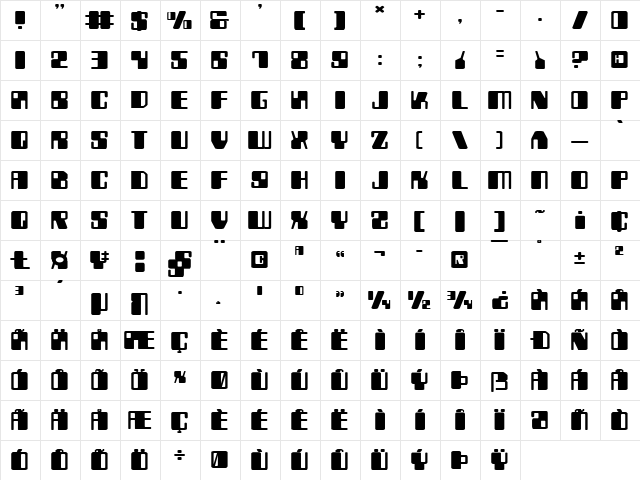
Zyborgs Expanded Expanded
Design Context for Zyborgs Expanded Typeface
Zyborgs Expanded is a composed and adaptable typeface that performs quietly and consistently across a wide range of design contexts.